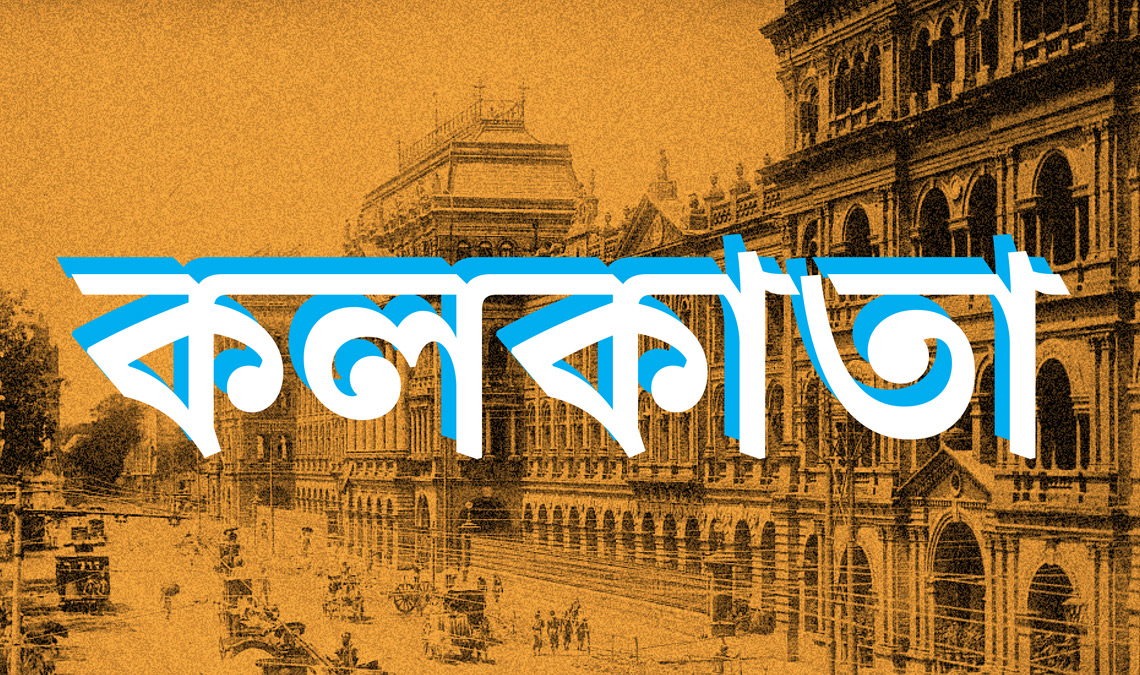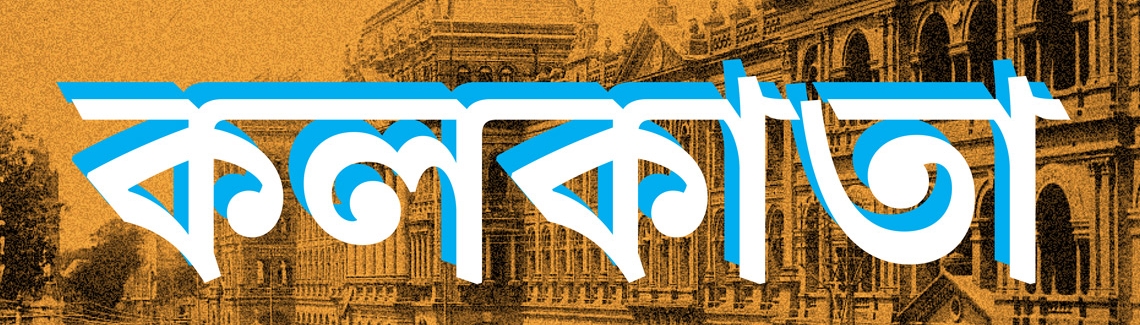
Noort Bengali in motion
Noort Bengali: An expression of confidence across two scripts, subduing complexity of information, medium, and style.
Designed by Juan Bruce, Noort Bengali was made for both printed and digital information-dense publications: travel guides, books, and magazines featuring graphics, photos, and infographics.
Whether in display or text settings, it stands apart in layered editorial pieces and brings eye-catching energy to packaging, advertisements, book covers, and posters.